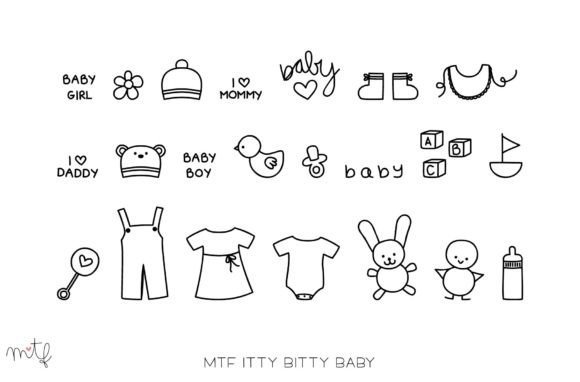
Introduction to Itty Bitty Baby Font
Itty Bitty Baby is filled with blissful characters related to babies.
This adorable dingbats typeface can nicely bring to life baby clothing items, nursery room decor, storybooks for kids, or anything alike .
Key Features of Itty Bitty Baby Font
Why Choose Itty Bitty Baby Font?